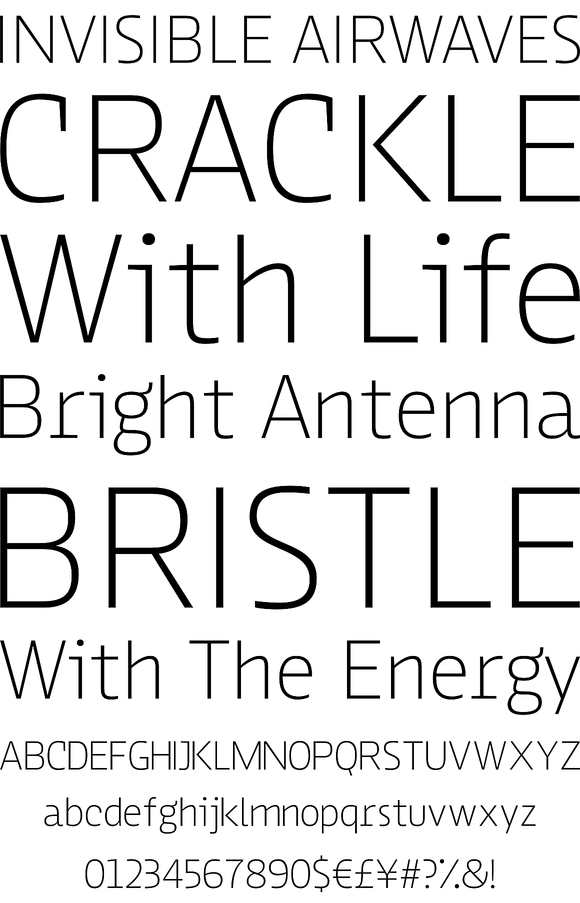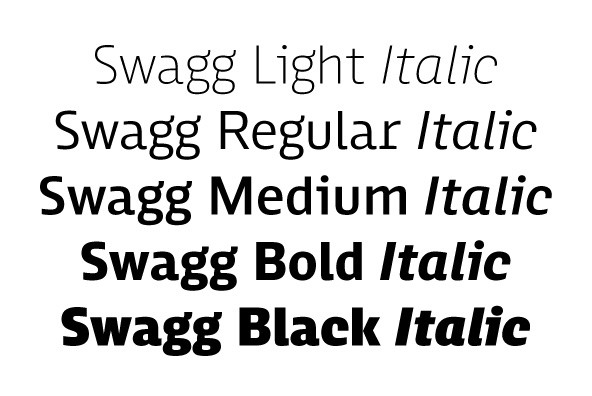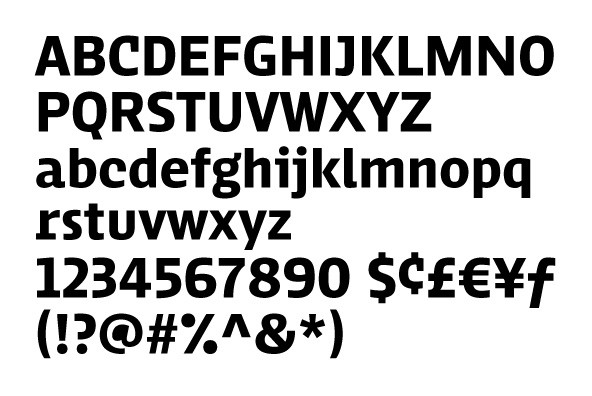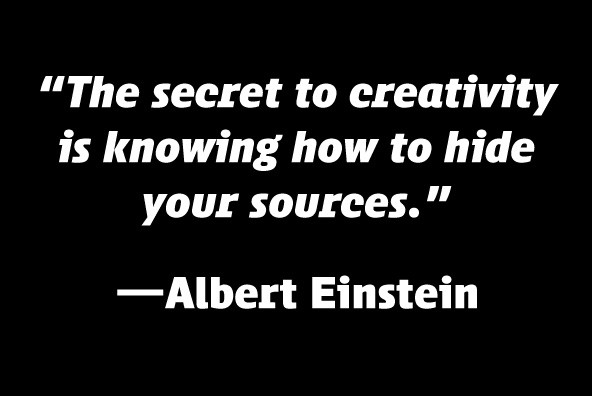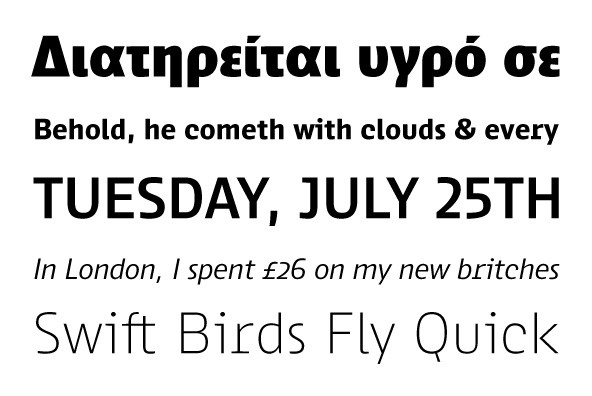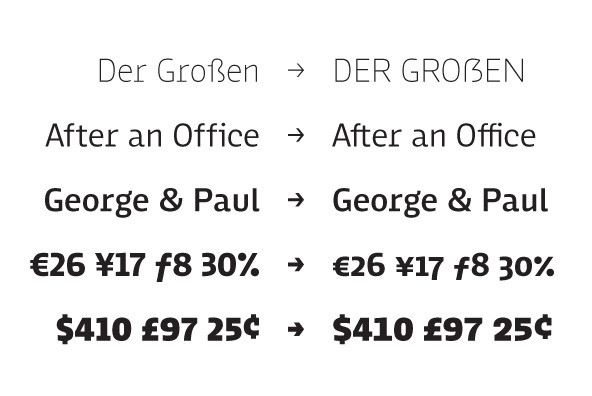
Swagg is a unique and friendly sans that looks great at any size. Originally starting as a branding project, Swagg is now a full fledged family with 5 weights. Swagg is loaded with goodies like old style figures, tabular figures, true italic, alternates, arrows and much more. Most proudly Swagg shows off a Greek alphabet, making it an ideal workhorse family for any collection!